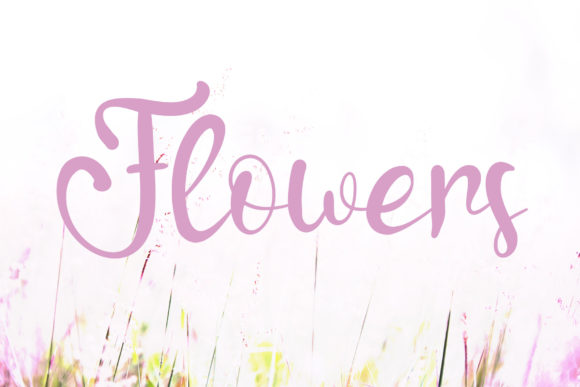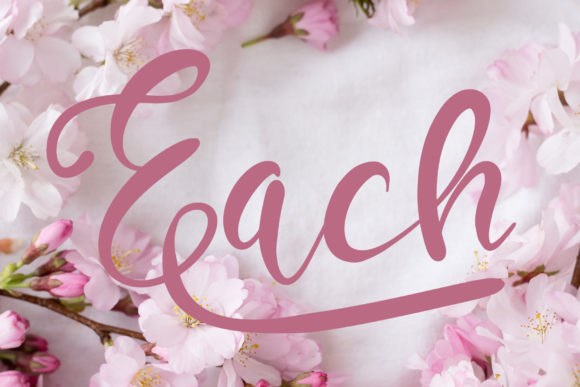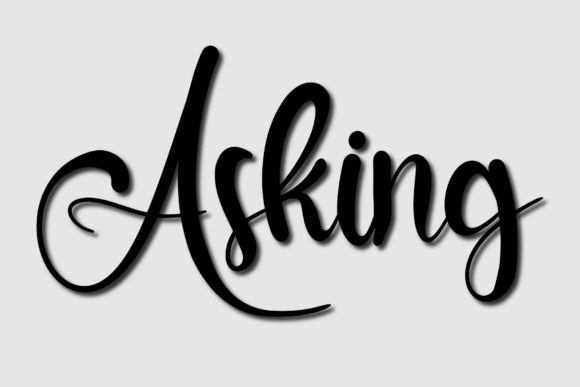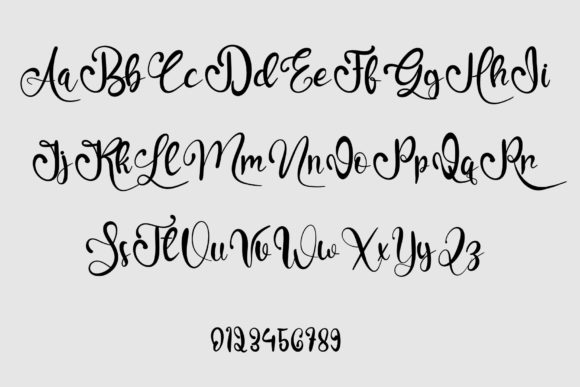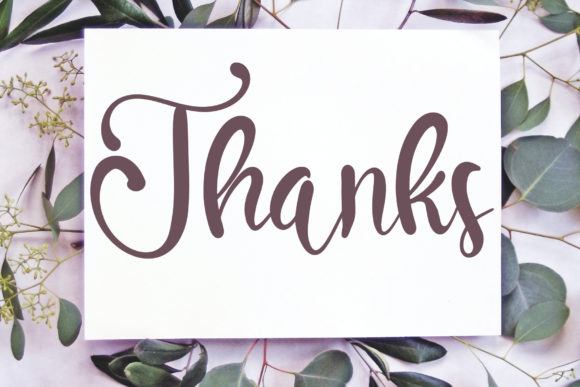
Introduction to Nona Love Font
Have you ever sat down at your desk, surrounded by scattered papers and a blank canvas, and wondered how to bring your creative vision to life? The struggle is real, but with the right tools, the possibilities are endless. For designers seeking a touch of elegance and sophistication, the Nona Love Font is an invaluable resource.
This sweet and subtle handwritten font is crafted with great care to deliver maximum results. Whether you’re working on a high-quality design project or simply looking for a beautiful font to add some personality to your work, the Nona Love Font is a versatile and reliable choice.
Key Features of Nona Love Font
- High-quality font with a unique and creative design perfect for various projects.
- Unique characteristics include elegant script and beautiful flourishes, ideal for adding a touch of sophistication to any creative project.
Honest Review: Nona Love Font
I recently stumbled upon the Nona Love Font, and I must say it’s been a great addition to my design resource library. The font is perfect for any creative project that requires a touch of elegance and sophistication.
One of the things that caught my attention was the high quality of the font. The characters are crisp, clean, and well-designed, making it a great choice for both digital and print designs. The font also features a transparent background, which is a nice touch for designers who want to add a bit of flexibility to their designs.
- ⚠️ Limited character set, which may not be ideal for complex designs
- ⚠️ Not as versatile as some other fonts, which may limit its use in certain contexts
Overall, I’m impressed with the Nona Love Font, and I would recommend it to designers who are looking for a high-quality font for their creative projects. With its elegant design and transparent background, it’s a great addition to any design resource library.
Nona Love Font is a versatile design resource that can be used in a variety of creative projects, including logos, brochures, and social media graphics. It’s also a great choice for designers looking for a free download with a transparent background.
When compared to Nona Love Font, Great Vibes Font offers a more refined and sophisticated look, making it suitable for formal events and high-end designs. While Nona Love Font is more playful, Great Vibes Font is ideal for those seeking a more classic and timeless aesthetic.
Compared to Nona Love Font, Alex Brush Font offers a more intricate and detailed design, making it suitable for designers seeking a high level of craftsmanship in their work. While Nona Love Font is more versatile, Alex Brush Font is ideal for those seeking a luxurious and exclusive look.